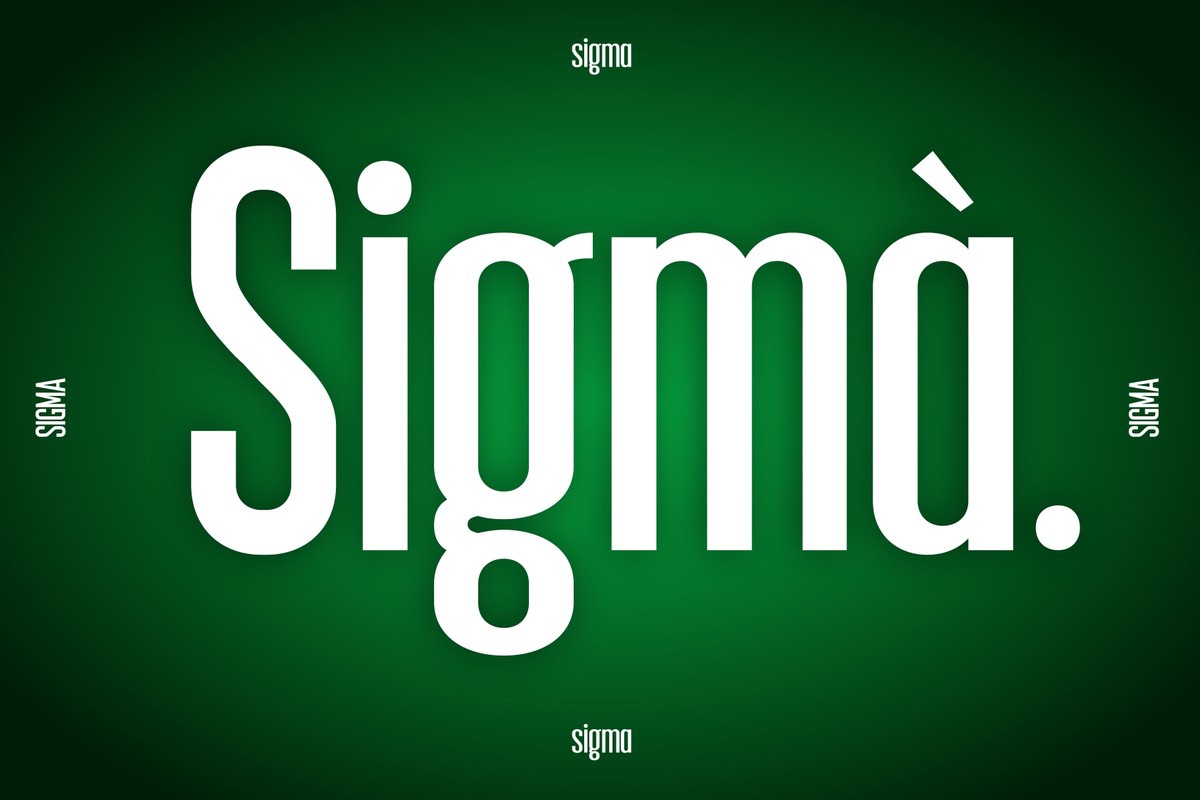
Sigma Font
Sigma Font is ideal for scientific research branding, mathematical publication layouts, technical documentation, engineering firm logos, academic conference materials, data analytics graphics, research institute signage, and educational technology interfaces.
This exciting Sigma Font embodies mathematical precision and scientific excellence through its clean geometric structure and analytical character that reflects the rigorous standards of academic research and technical innovation. The font's methodical personality and scholarly appeal make it an exceptional choice for projects requiring scientific credibility, mathematical accuracy, and intellectual authority that resonates with researchers, academics, and technology professionals.
The Sigma Font family includes multiple analytical variations such as Regular, Bold, Light, Condensed, Extended, and Mathematical Symbol versions, providing designers with comprehensive options for creating authoritative brand communications and scientifically precise typographic compositions with authentic academic research appeal.
Calculate typographic excellence with Sigma Font Free Download - a precisely engineered typeface that represents the pinnacle of scientific and mathematical typography. This versatile font combines analytical rigor with contemporary functionality, making it perfect for brands and projects that need to communicate scientific authority, mathematical precision, and academic excellence.
The analytical character of Sigma Font makes it particularly valuable for research institutions, technology companies, engineering firms, and educational organizations that need to convey scientific credibility, technical expertise, and academic authority. Its precise styling appeals to professionals who appreciate mathematical accuracy, scientific methodology, and rigorous analytical approaches.
Technical communication specialists choose Sigma Font for its exceptional clarity and scientific atmosphere across various research applications. The font maintains its authoritative character from detailed technical documentation to large conference presentations, ensuring consistent academic branding and scientific appeal throughout all research communications.
The distinctive personality of Sigma Font creates immediate professional connections through powerful associations with scientific discovery, mathematical innovation, and academic excellence. This makes it invaluable for brands seeking to leverage scientific authority and technical expertise for marketing campaigns and academically focused brand positioning strategies.
Research-oriented organizations utilize Sigma Font to establish credible identities that communicate scientific rigor, mathematical precision, and academic excellence in competitive technology markets. The typeface's analytical appeal helps institutions differentiate themselves while attracting professionals who value scientific accuracy, technical innovation, and authentic academic research experiences in their professional and educational pursuits.